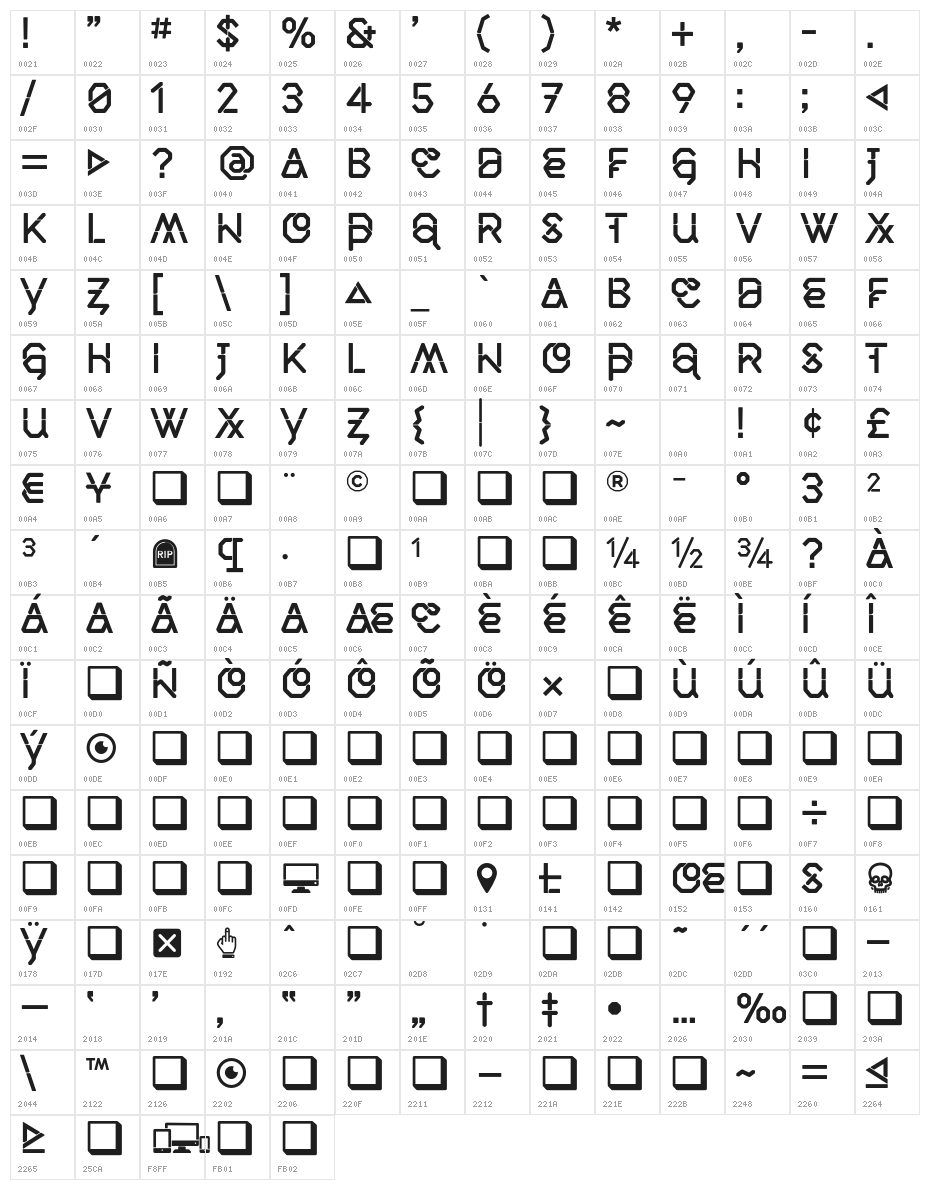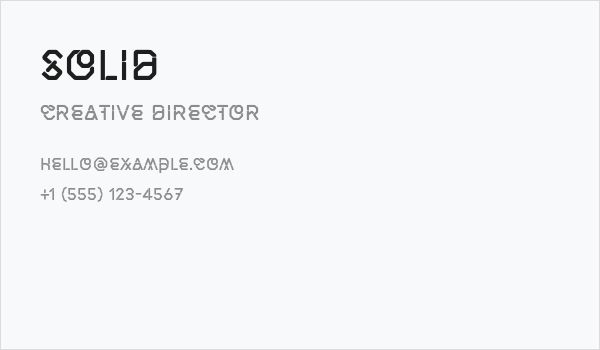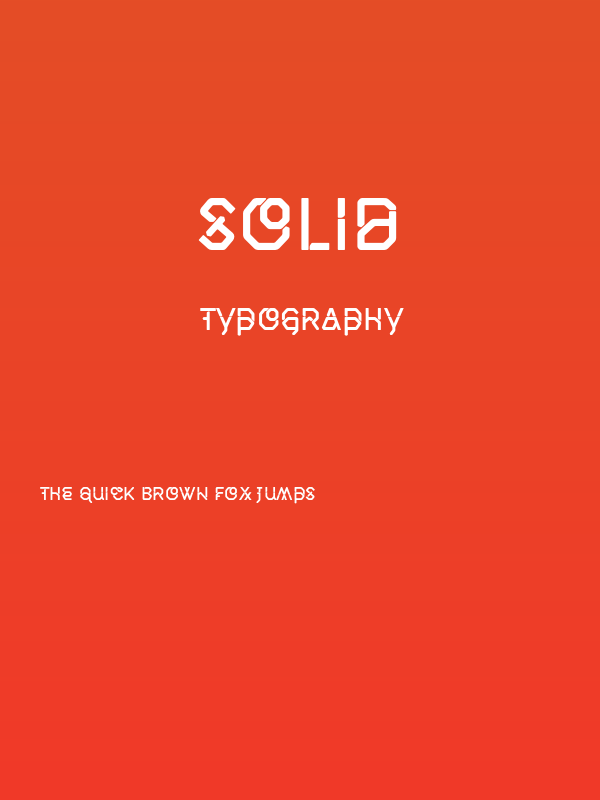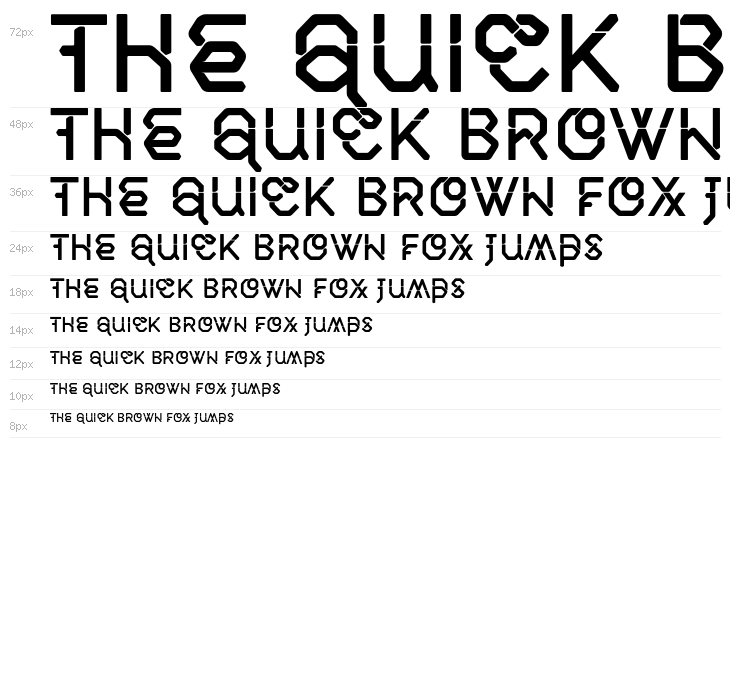
Solid Font
Solid Description
This font features a bold, geometric design with a futuristic and industrial feel. The characters are constructed with thick lines and angular shapes, creating a sense of strength and modernity. The uppercase and lowercase letters maintain a consistent style, with unique cutouts and sharp edges that add to the font's distinctive appearance. The numerals and special characters follow the same design principles, ensuring a cohesive look across all elements. This font's boldness and geometric nature make it stand out, perfect for projects that require a strong visual impact.
| Proposed Projects | Ideal for branding, posters, video game graphics, and tech-related projects. |